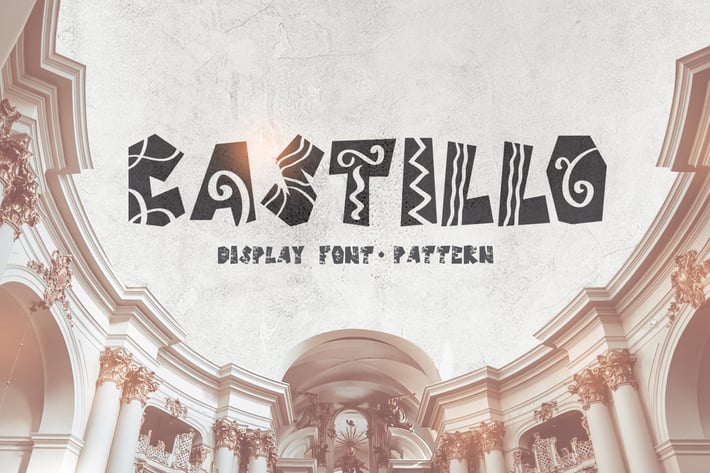
Castillo Font
Castillo is Regular, Italic, Bold and Bold Italic unique handmade font which is well suited for the design of children's books, comics, antique subjects, other.
PERFECT FOR
Titles for children albums, greeting cards (Christmas, Birthday, other holidays), logos, phrases, gift shops, presentation, Pinterest or Instagram.